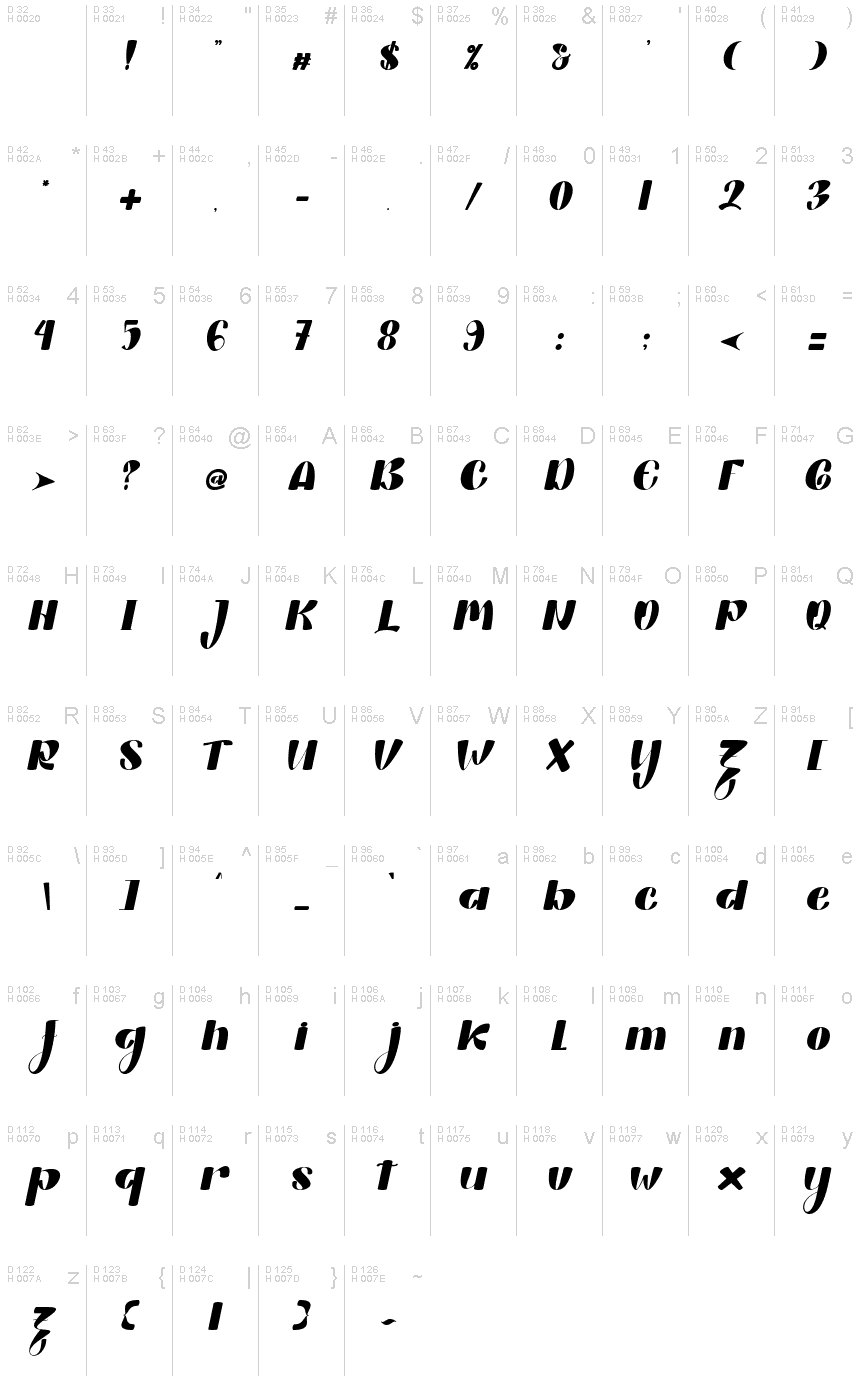
Rellaya Italic, designed by Harjuno Kristanto, is a modern display font that exudes confidence and creativity. With its extra-bold weight and semi-expanded width, this font is perfect for projects that demand attention and impact. Its sleek curves and elegant slant make it an excellent choice for fashion magazines, luxury branding, and edgy advertisements.
Whether you're designing a cutting-edge website or creating eye-catching posters, Rellaya Italic will elevate your project with its unique style and bold presence.
Stand out from the crowd with this captivating font that commands attention in any design.